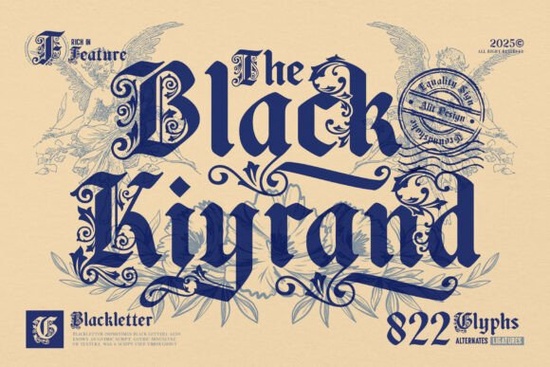
Black Kiyrand Font is an ornamental blackletter typeface built for designers who want their text to carry weight, history, and visual drama. With 822 glyphs packed with alternates, ligatures, and baroque flourishes, this font bridges medieval calligraphy traditions with modern design needs. Whether you're working on vintage posters, book covers, branding projects, or apparel, Black Kiyrand delivers that old-world Gothic look with enough versatility to handle real creative work.
What Makes Black Kiyrand Different from Other Blackletter Fonts?
Plenty of blackletter fonts exist, but most fall into one of two camps: either they're historically accurate but rigid, or they're stylized but lose the soul of Gothic lettering. Black Kiyrand sits in the middle. The uppercase letters carry lavishly ornamented details think refined flourishes and decorative extensions while the lowercase stays readable with a natural, flowing rhythm.
That balance matters. You get headline impact without sacrificing legibility in body text or supporting copy. The font includes swash alternates, stylistic sets, and ligatures that let you customize how each word looks, so your designs don't feel template-driven.
Who Is This Font Actually For?
If you work in any of these areas, Black Kiyrand is worth a close look:
- Print-on-demand sellers designing t-shirts, mugs, and posters with vintage or Gothic themes
- Small business owners creating logos, packaging, or menus with a premium, handcrafted feel
- Book designers working on fantasy novels, poetry collections, or historical fiction covers
- Certificate and invitation makers who need formal, decorative lettering
- Creative hobbyists making wall art, monograms, or scrapbook elements
The ornamental style also works well for monogram projects. The uppercase characters have enough visual complexity to stand alone as decorative initials, which is useful for wedding stationery, luxury branding, or personalized gifts.
How Does It Compare to Similar Blackletter Options?
Blackletter fonts vary widely in style. If you're exploring this category, it helps to compare a few options before committing.
Harry Poster Regular Font leans toward a cleaner, more structured blackletter style. It works well when you want Gothic character without heavy ornamentation good for posters and bold headlines that need to read quickly.
Bethinae Font takes a more flowing, script-influenced approach to blackletter design. It's a solid choice for elegant invitations or branding that needs Gothic roots with a softer touch.
Black Kiyrand is the most ornamental of the three. With its baroque flourishes and 822 glyphs, it's built for projects where the lettering itself is a design feature not just a way to display words.
What Can You Actually Make with 822 Glyphs?
That glyph count isn't just a number. It means you have real design flexibility built into the font file:
- Stylistic alternates for uppercase and lowercase letters, so you can swap in different versions of the same character
- Ligatures that connect letter pairs naturally, avoiding awkward spacing in common combinations
- Extended language support for multilingual projects
- Ornamental capital letters that function as decorative initials or monogram bases
For print-on-demand work, this variety helps you create multiple product designs from a single font without everything looking the same. Each alternate gives you a slightly different visual mood to work with.
Quick Checklist Before You Buy
- Test your use case. Download the preview and set a few sample words in your target layout.
- Check alternates. Open the glyph panel in your design software to explore all available characters.
- Pair it wisely. Use a simple sans-serif or serif for body text Black Kiyrand handles the display role best.
- Consider print size. The ornamental details show best at larger sizes. For small text, switch to the simpler lowercase.